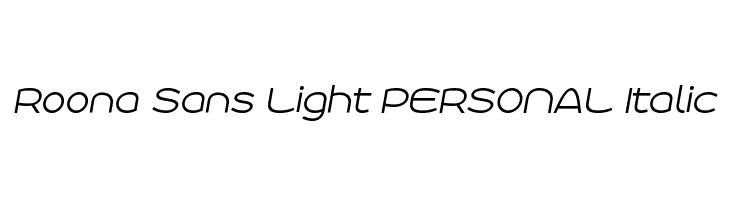
A sleek, modern, light, and italic sans-serif font with dynamic character shapes.
A modern, geometric sans-serif font with a sleek and minimalistic design.
A modern, italic sans-serif font with smooth curves and a medium weight.
A modern, thin, and minimalist font with geometric forms.
A sleek, thin, and modern sans-serif font with an italicized style.